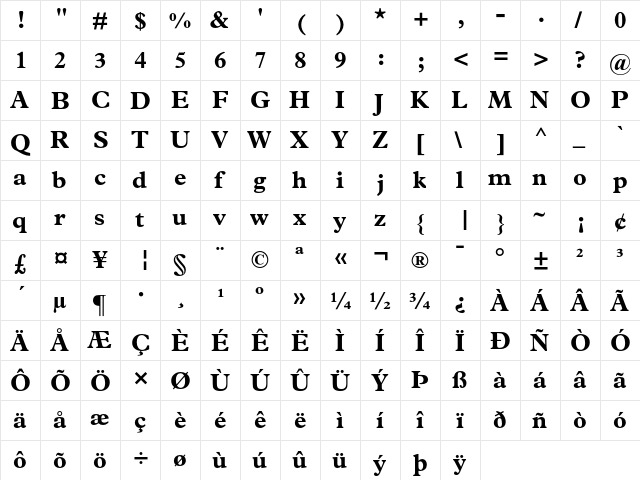
Plantin Bold
Design Context for Plantin Typeface
Plantin takes a measured approach to typography — its balanced proportions and neutral character make it a reliable workhorse for both digital and print work. Its bold stroke weight gives it real presence on the page.